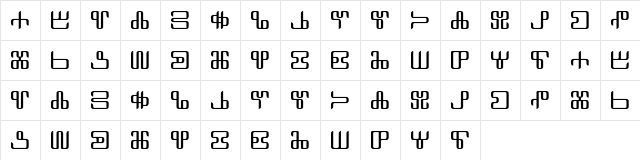
Neoglagolitic Regular
Design Context for Neoglagolitic Typeface
Neoglagolitic offers clean, dependable letterforms without strong stylistic allegiance, making it a practical choice for designers who need flexibility.
Pro Tip: Use Neoglagolitic in both headline and body roles to test its range before committing to a single application.